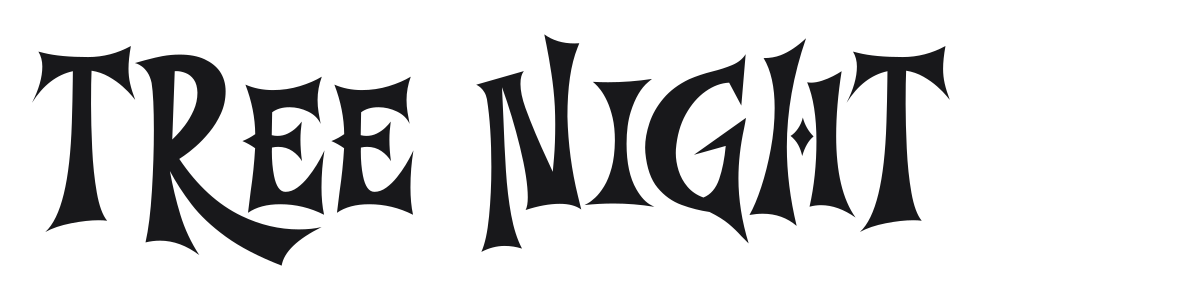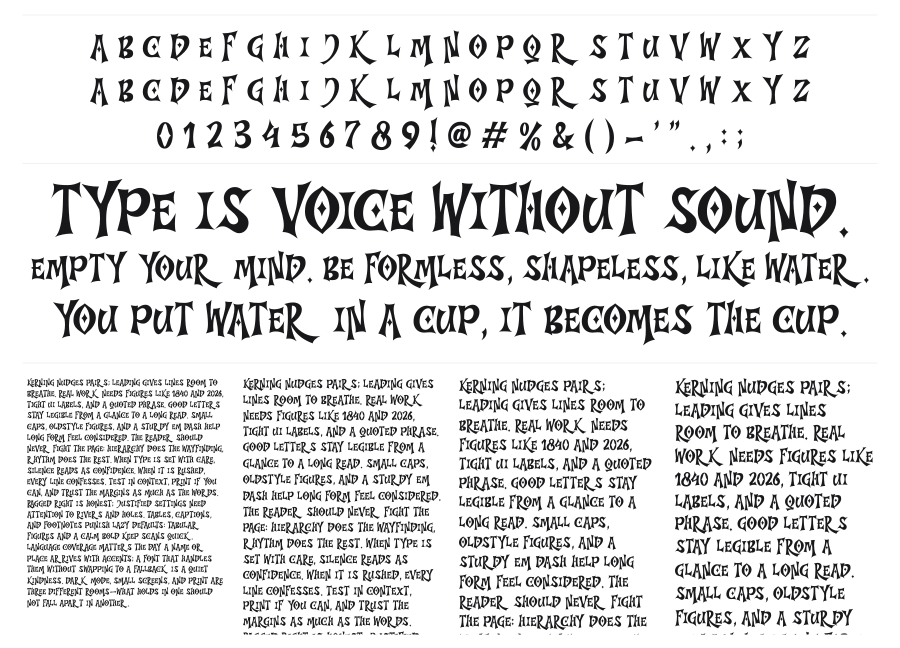
Tree Night
Tree Night is a gothic display face built on dramatic stroke contrast and sharply pointed terminals that suggest reaching branches or thorns. Diamond-shaped accents punctuate certain strokes, adding a ritualistic, fantastical quality that goes beyond standard horror typography. The condensed proportions and heavy weight make it commanding at large sizes.